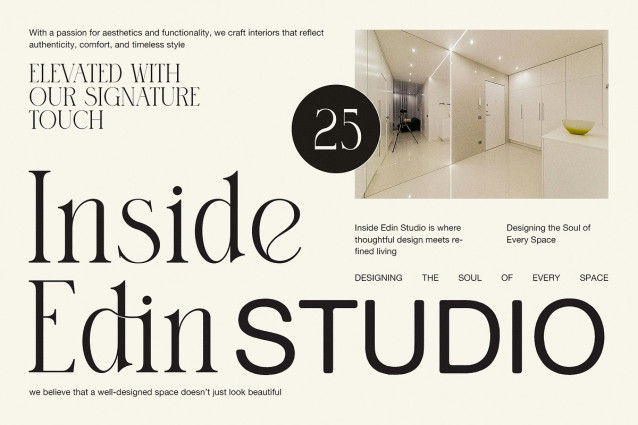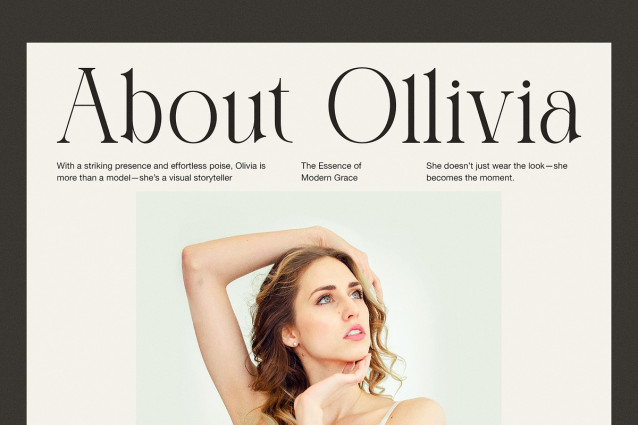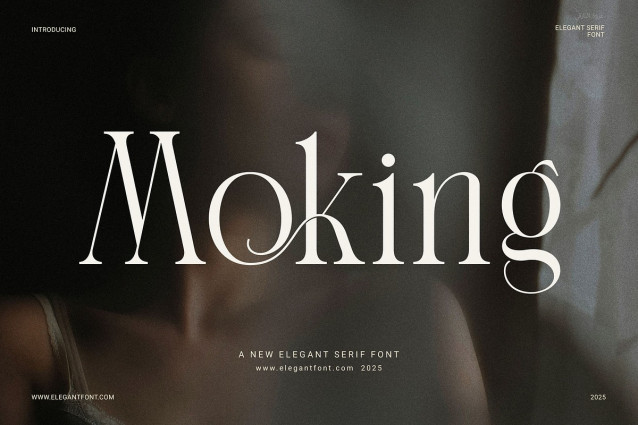
Moking Font
Moking Font – Elegant Serif Font is a stylish and modern typeface that brings a touch of class to every design. Its clean, proportional shapes are perfect for creating clear and polished visuals. Whether used in print or digital work, Moking adds a smooth and elegant tone to your layout.
This font was designed to work beautifully in both large and small text. It features functional ligatures that make words flow more naturally. As a result, your designs will feel more professional and visually balanced.